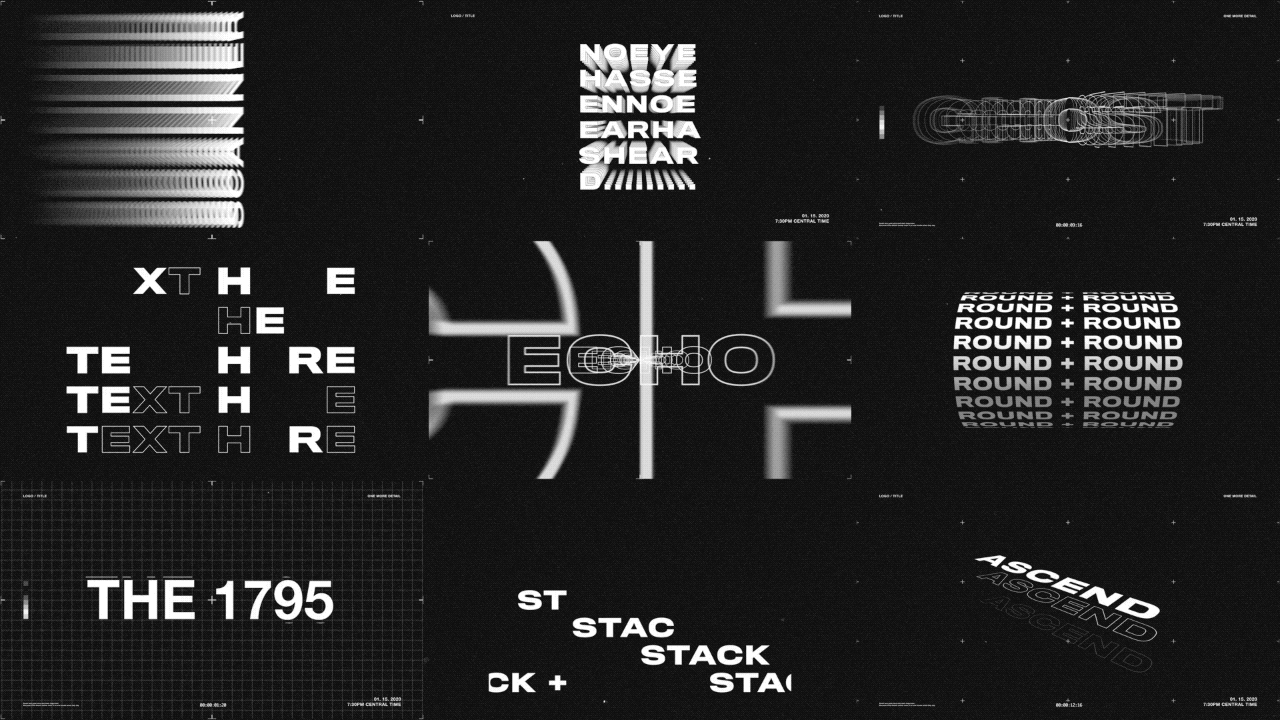
Type that Moves and Grooves!
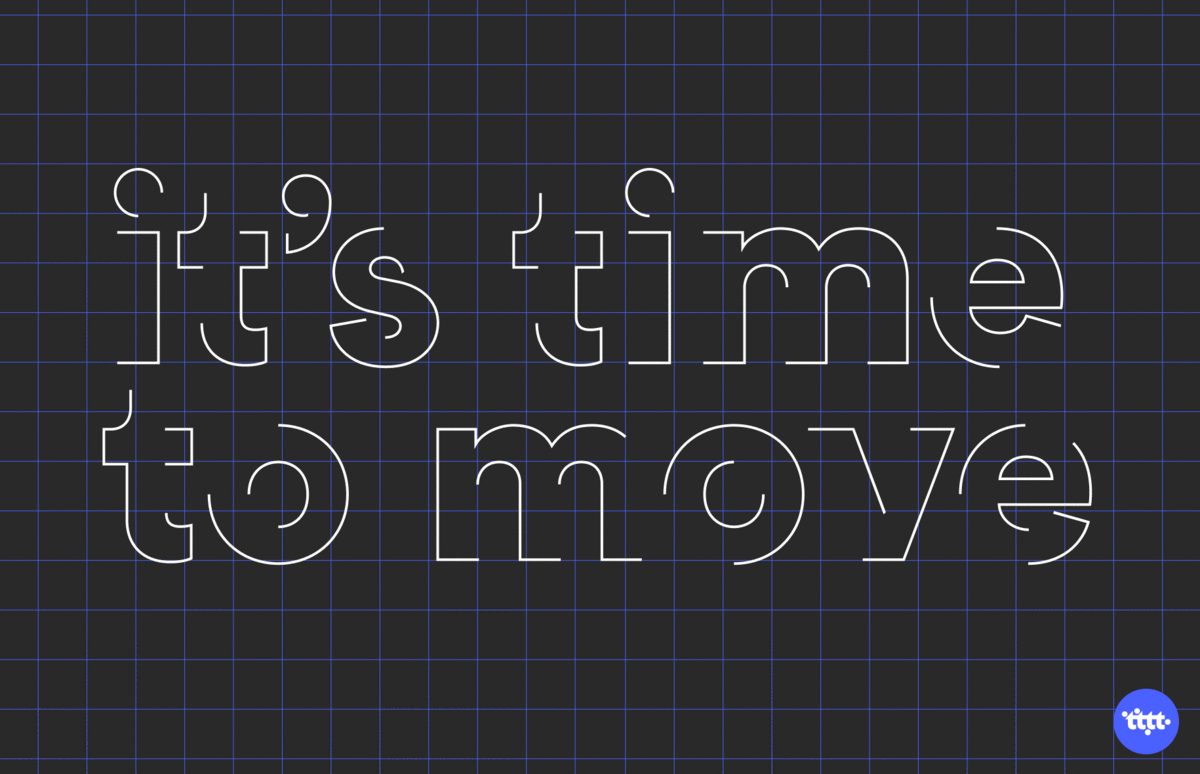
🕺 Type that Moves 💃
ANIMATED TYPEFACES. Snappy videos with text effects are all the rage. To be fair, they have been for a while, and by my estimate, they ain’t going anywhere anytime soon! Kinetic typography is an animation technique that mixes movement and text to convey ideas and evoke emotion. Having too much text on the screen to read and understand can be overwhelming, but when done purposefully— using precise timing, music, and visual emphasis— text-based videos can be entertaining and effective.
If you’re keen on checking out some great videos that use kinetic typography, check out Nice Type.
But today, I also bring you— Animography — a webshop and type-foundry that curates animated typefaces for sale (some free!) to use and customise with Adobe After Effects. On their website, you’ll of course find a range of animated typefaces as you would on any foundry, but here, each employing a different style of motion. There’s also tutorials and tools to help get you started.
🤖 From Code to Cursive 🖋
RECURSIVE. Today’s face is Recursive, the closest to a typeface that almost dances! There’s so much and so little I can justifiably explain about Recursive. It’s an extensive variable font family, and that’s the ‘so much’ part (we’ll get deep into variable fonts some other time. Stay tuned!) and the ‘so little’ is because Recursive speaks for itself. Also, it’s free 😮
Recursive draws inspiration from single-stroke casual sign-painting, a style of brush writing that is stylistically flexible and warmly energetic. The range of the font styles are across two axes— monospace to sans and linear to casual, and fonts everywhere in between. Taking full advantage of variable font technology, Recursive has an unprecedented level of flexibility, all from a single font file (read: variable fonts).
🦾 Pro Moves 🦾
KINETIX. If you’re feeling a little more fiesty and/or want to seriously upgrade your Instagram game, check out Kinetix by Ezra Cohen. Kinetix is a modular mograph (hip-speak for motion graphics) and kinetic text animation template for Adobe After Effects. There are about 25 different templates, the trendiest and coolest in the biz, all customisable. If you’re having trouble or want to know how to go about using Kinetix, Ezra has also created this tutorial on how to use and make the best of it.